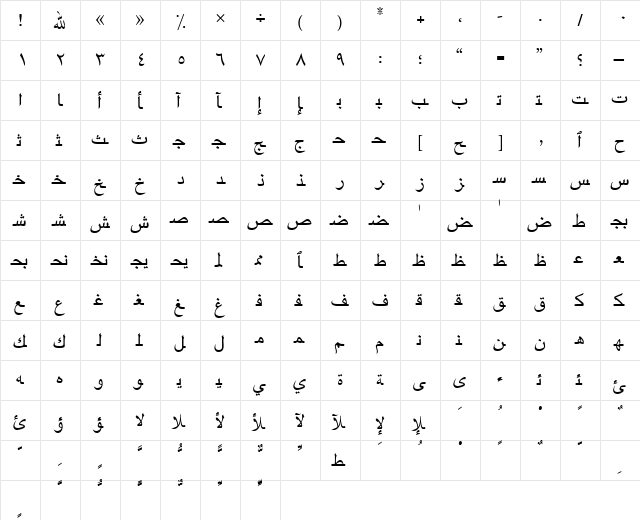
ArabicRiyadhSSK Regular
Design Context for ArabicRiyadhSSK Typeface
ArabicRiyadhSSK offers clean, dependable letterforms without strong stylistic allegiance, making it a practical choice for designers who need flexibility.